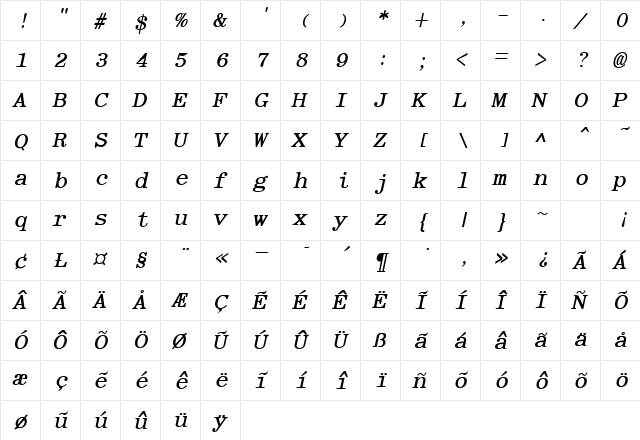
Elite Bold Italic
Design Context for Elite Typeface
Elite is a composed and adaptable typeface that performs quietly and consistently across a wide range of design contexts. The slanted form adds forward momentum and visual energy. Its bold stroke weight gives it real presence on the page.
Pro Tip: Try Elite for annotation and caption copy alongside an upright companion — the contrast in angle creates a dynamic but ordered typographic system.